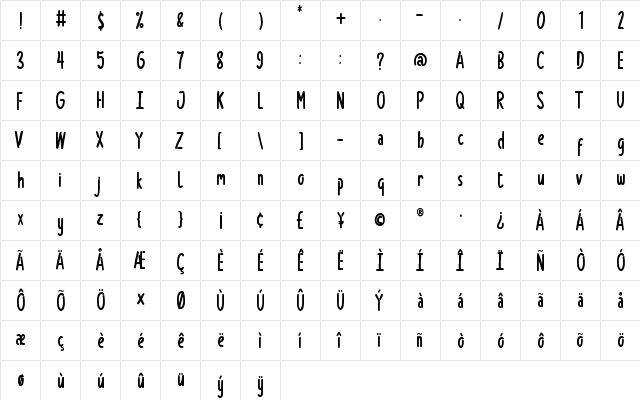
Butterskull Regular
| Foundry | Typotopia |
| Designer | Typotopia |
Design Context for Butterskull Typeface
Butterskull is a composed and adaptable typeface that performs quietly and consistently across a wide range of design contexts.